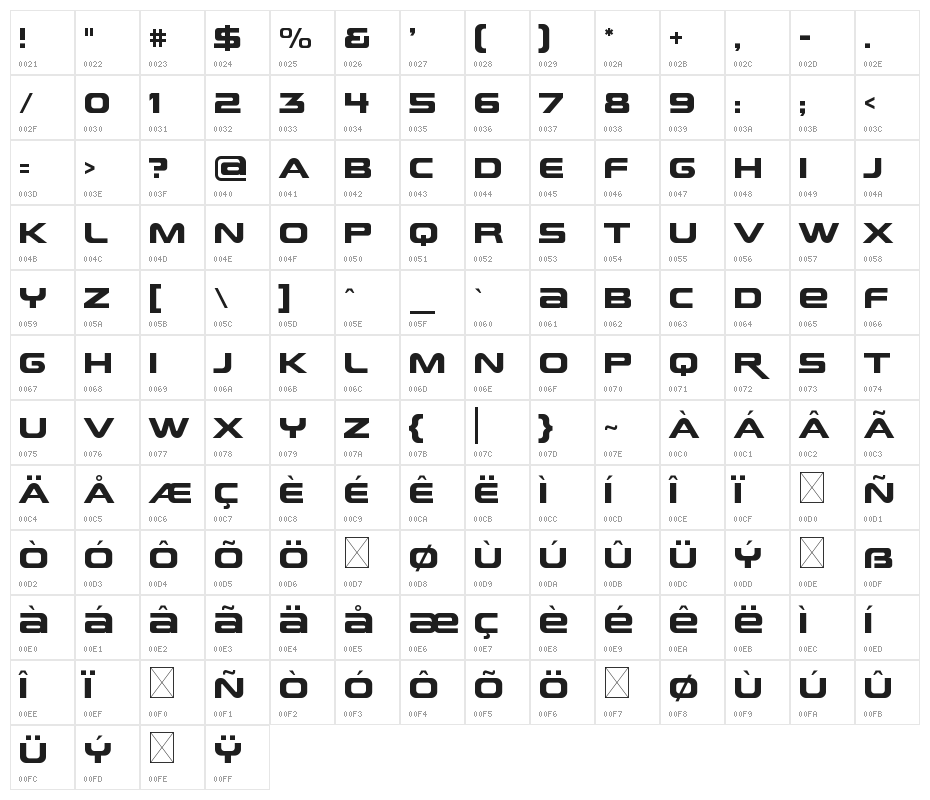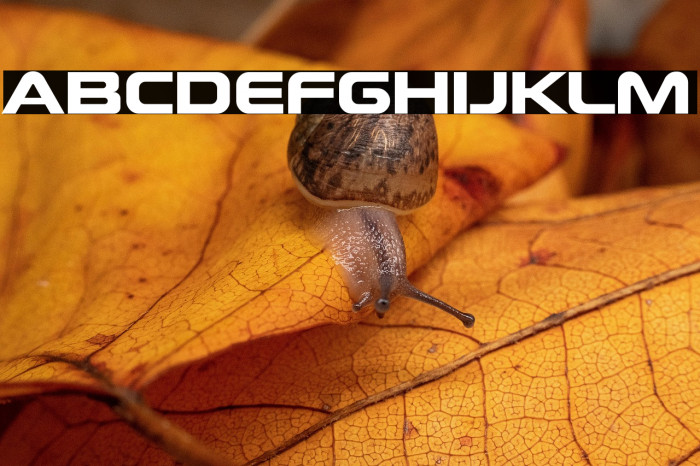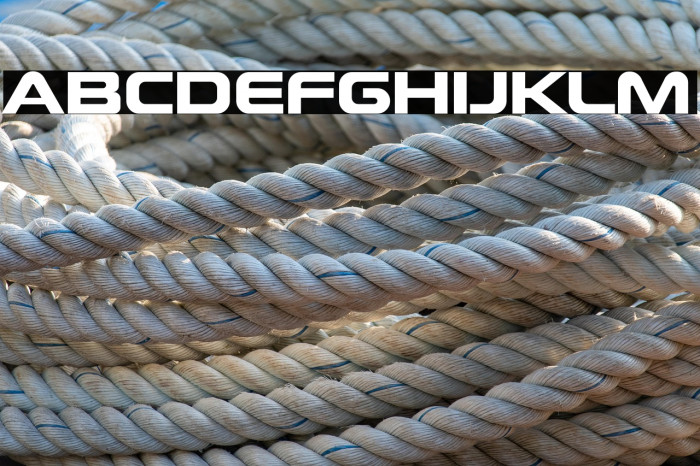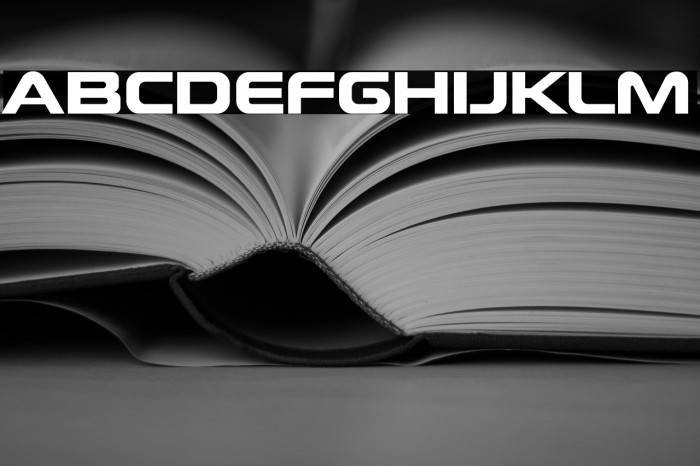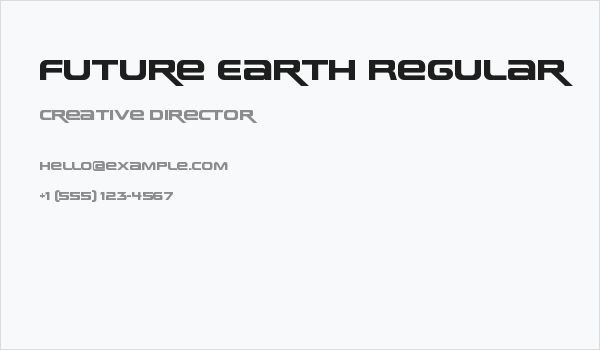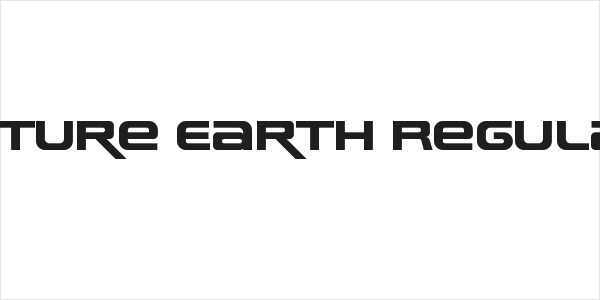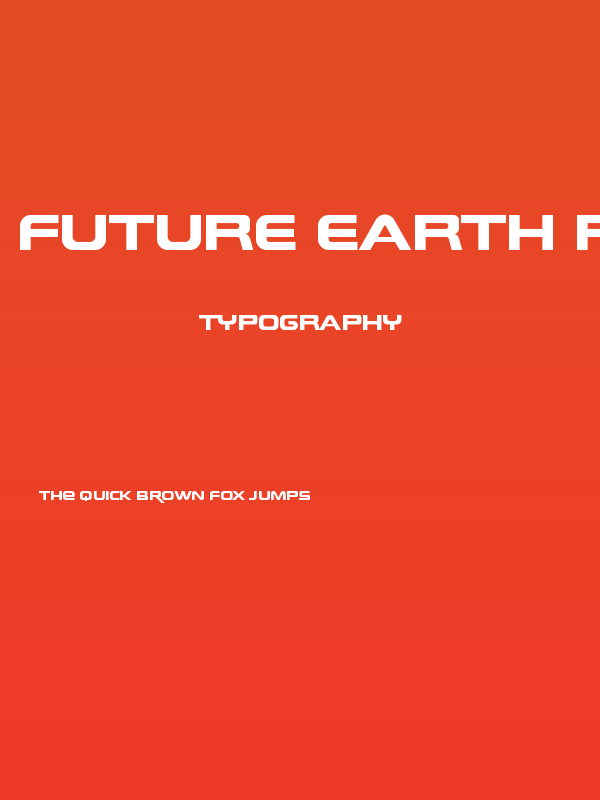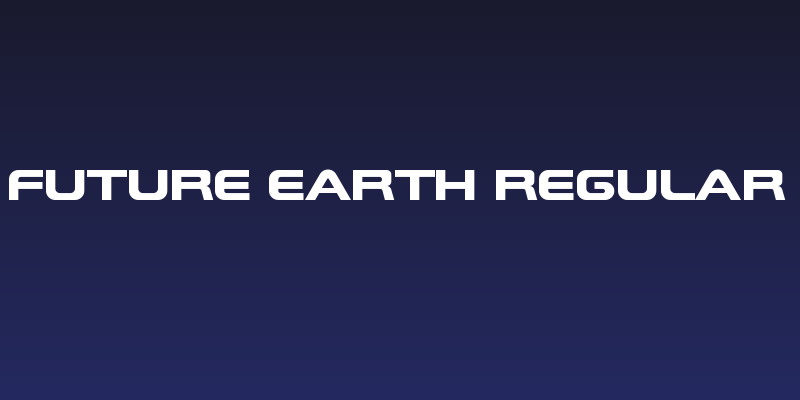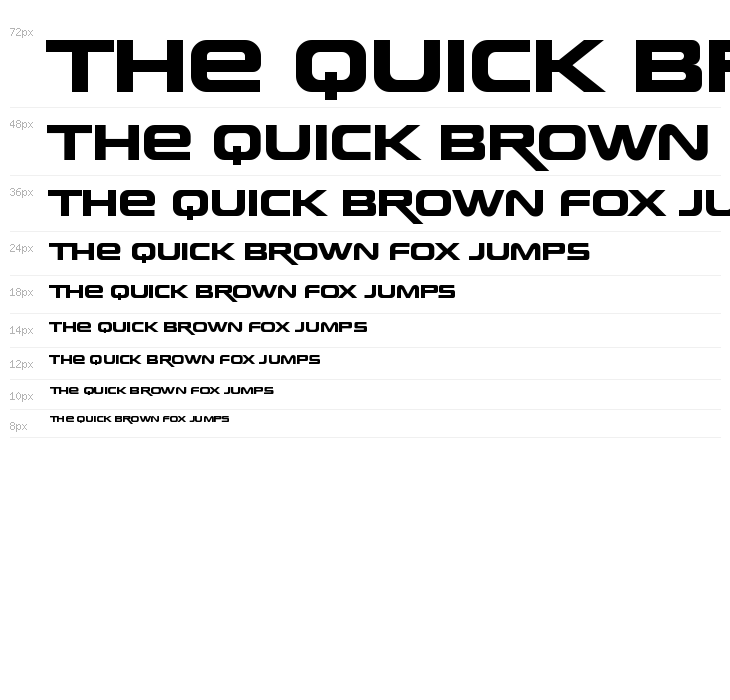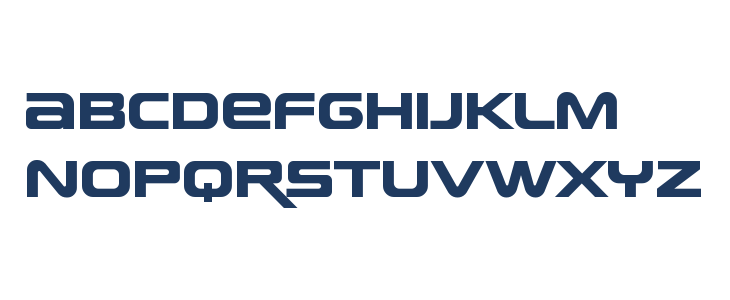
Future Earth Regular Font
Future Earth Regular Description
This font features a futuristic and bold design, characterized by its geometric shapes and sharp angles. The uppercase and lowercase letters maintain a consistent style, with a strong emphasis on horizontal and vertical lines. The numerals and special characters follow the same aesthetic, providing a cohesive look across all characters. The font's modern appearance is suitable for projects that require a cutting-edge and tech-inspired feel. Its distinct style makes it ideal for branding, headlines, and digital interfaces where a contemporary and innovative look is desired.
| Use Case | Headlines, Logos, Digital interfaces |
| Proposed Projects | Ideal for tech branding, digital interfaces, sci-fi themed designs, and modern advertising. |